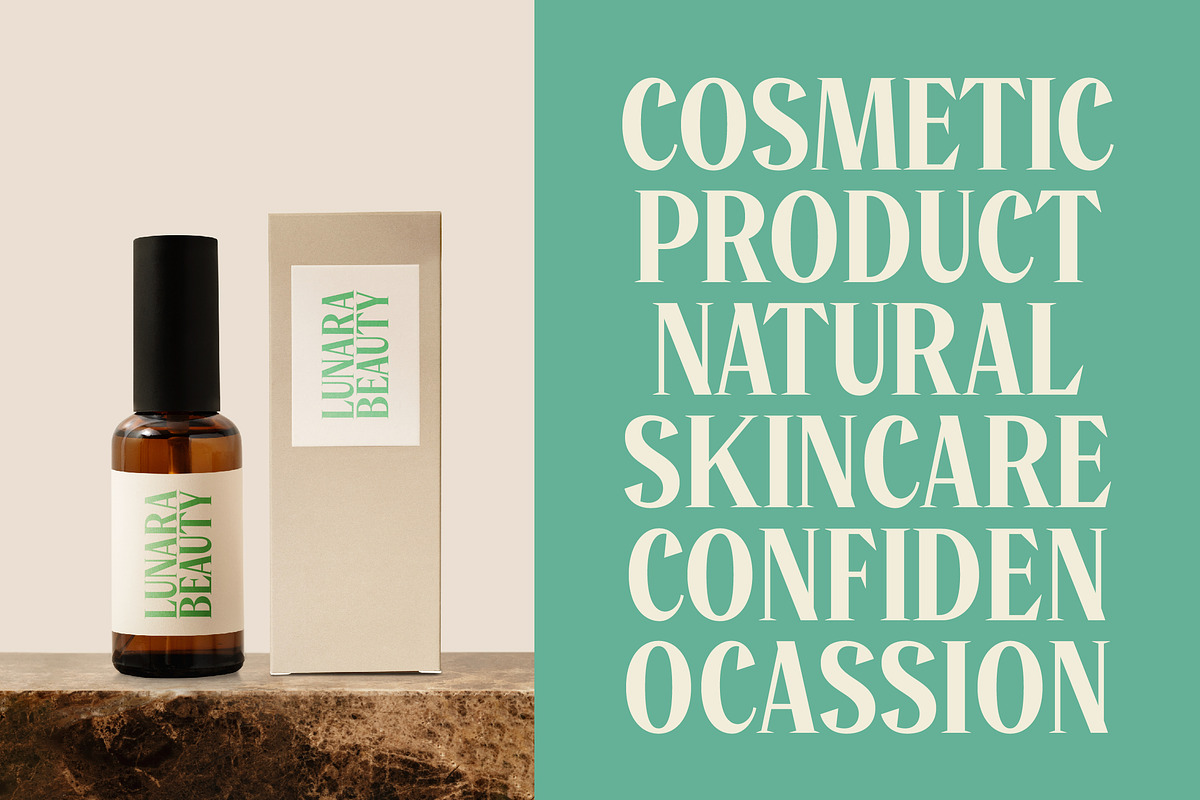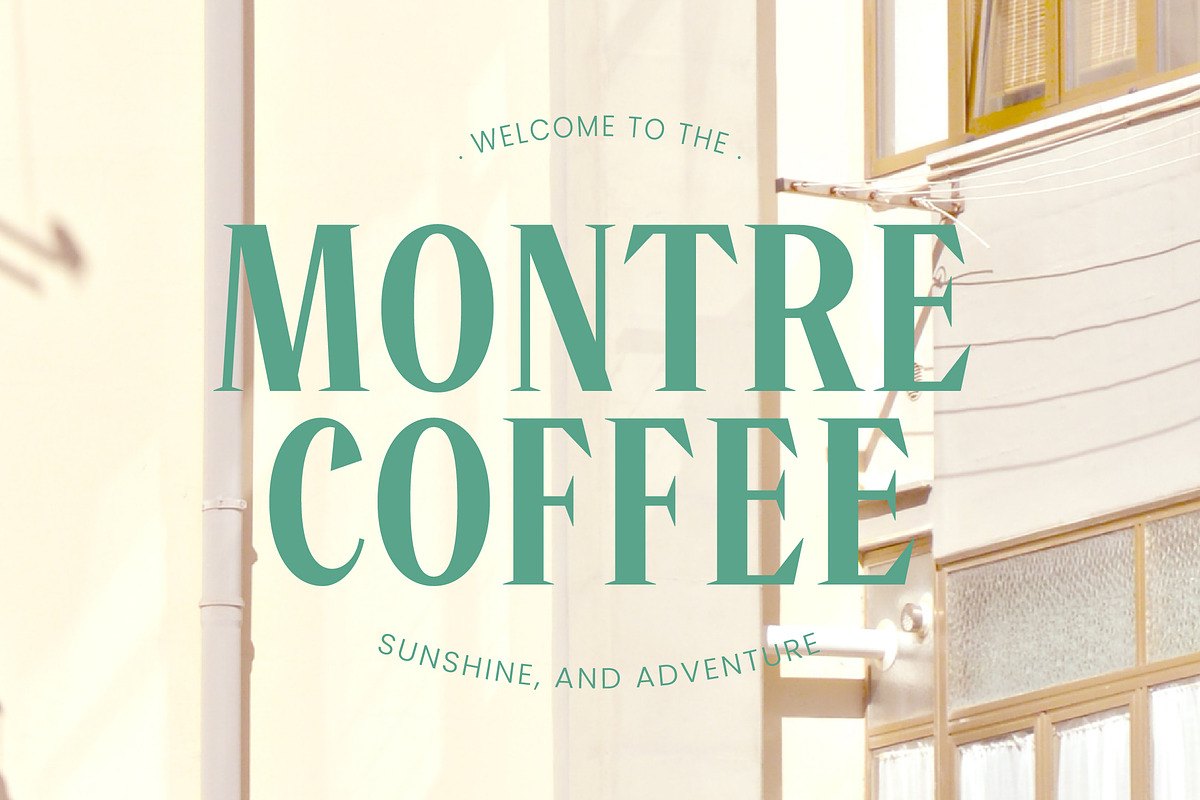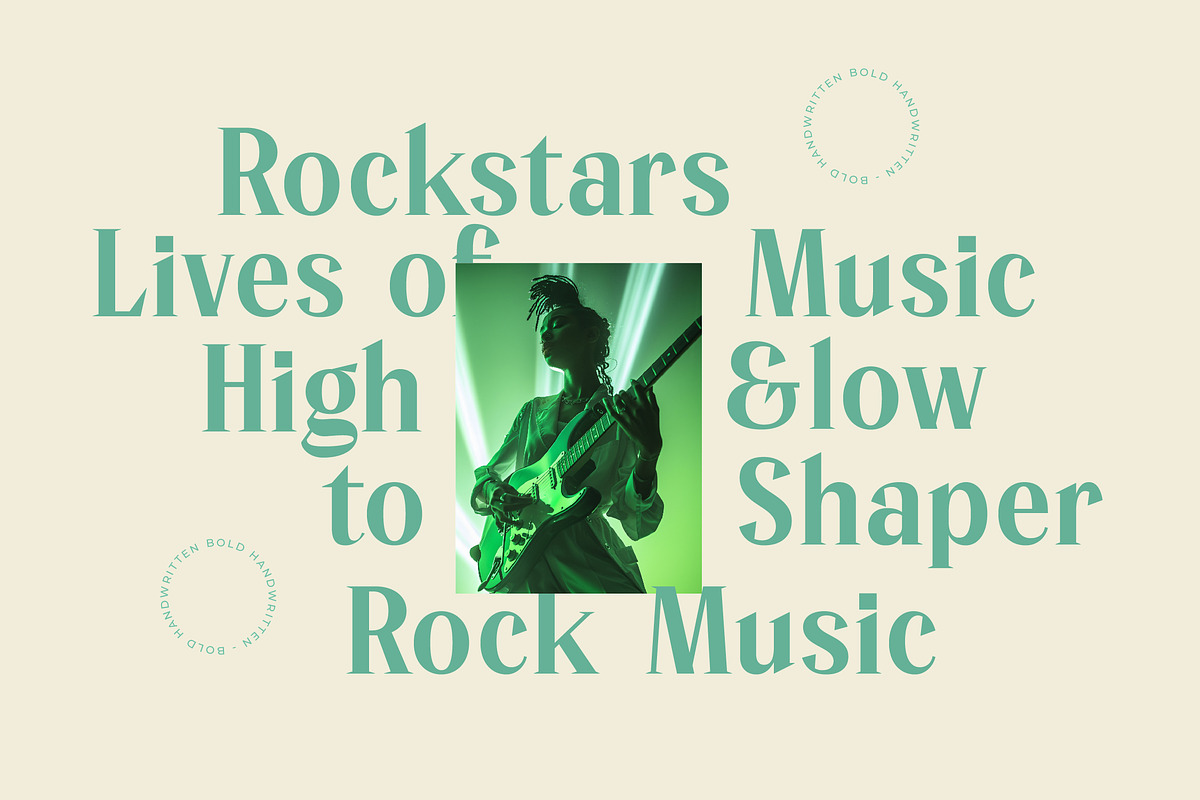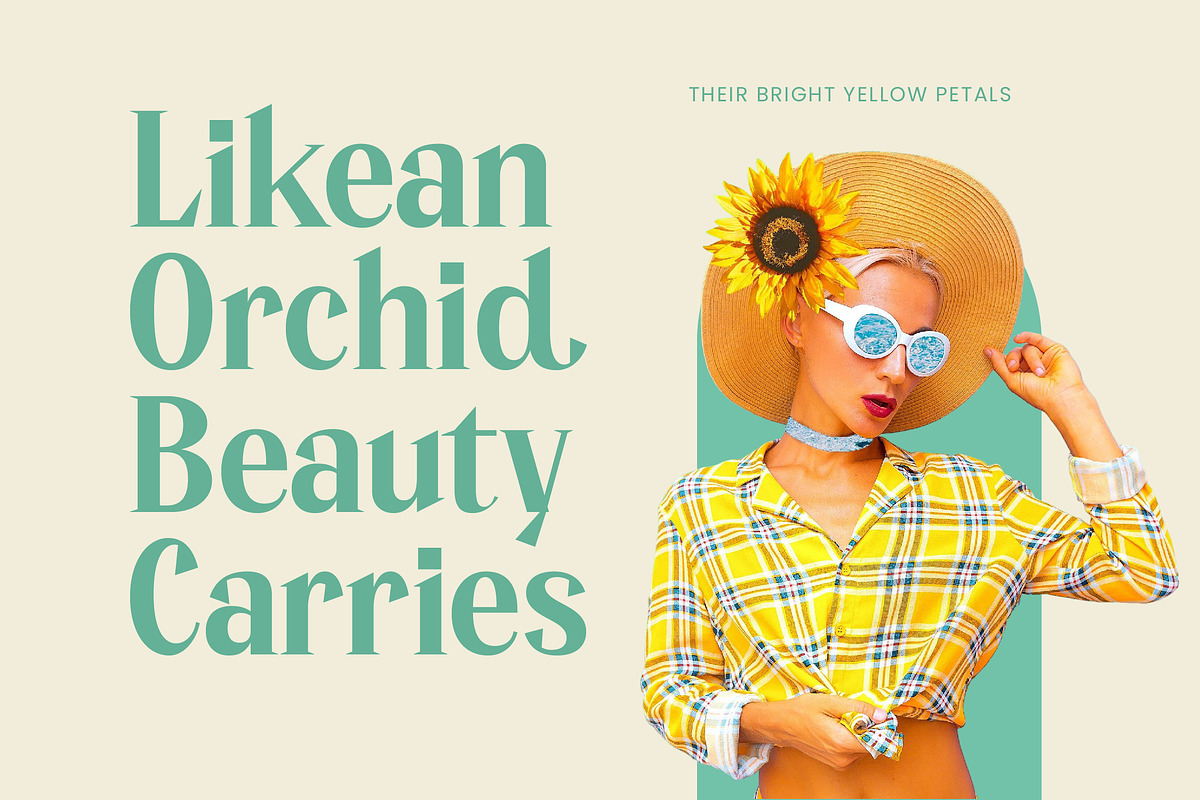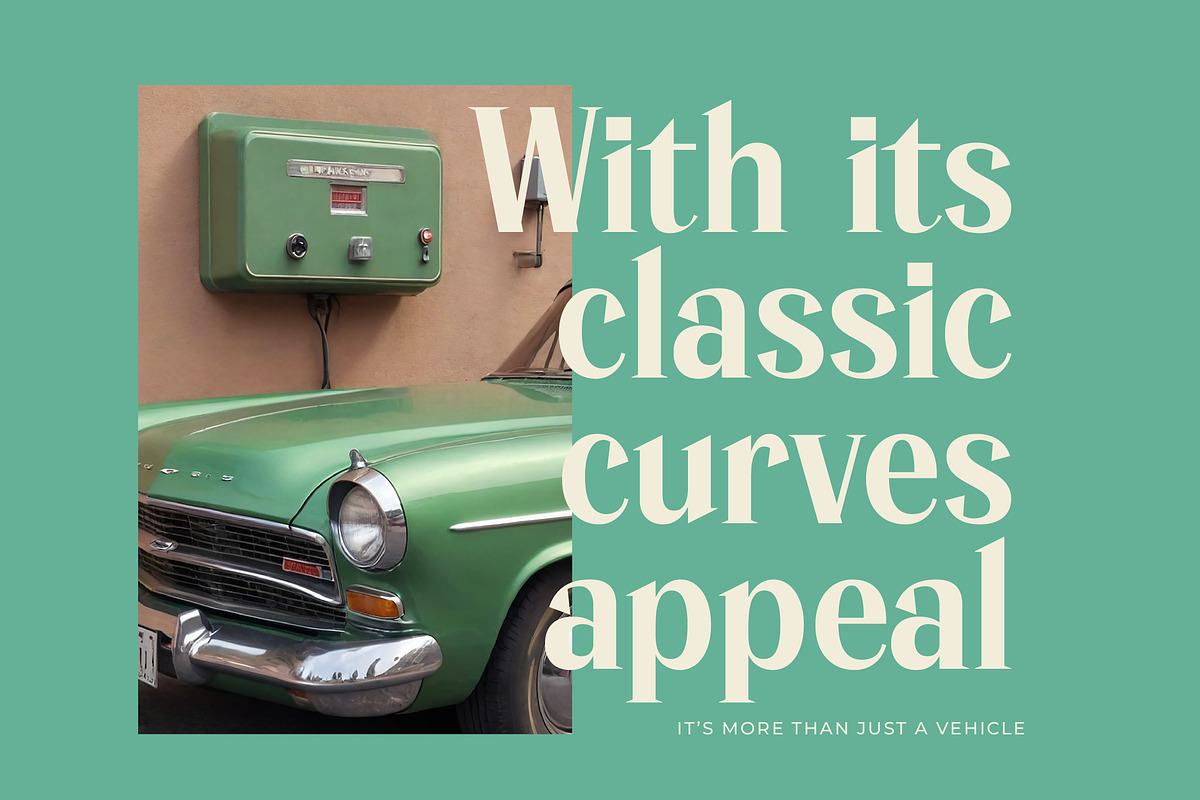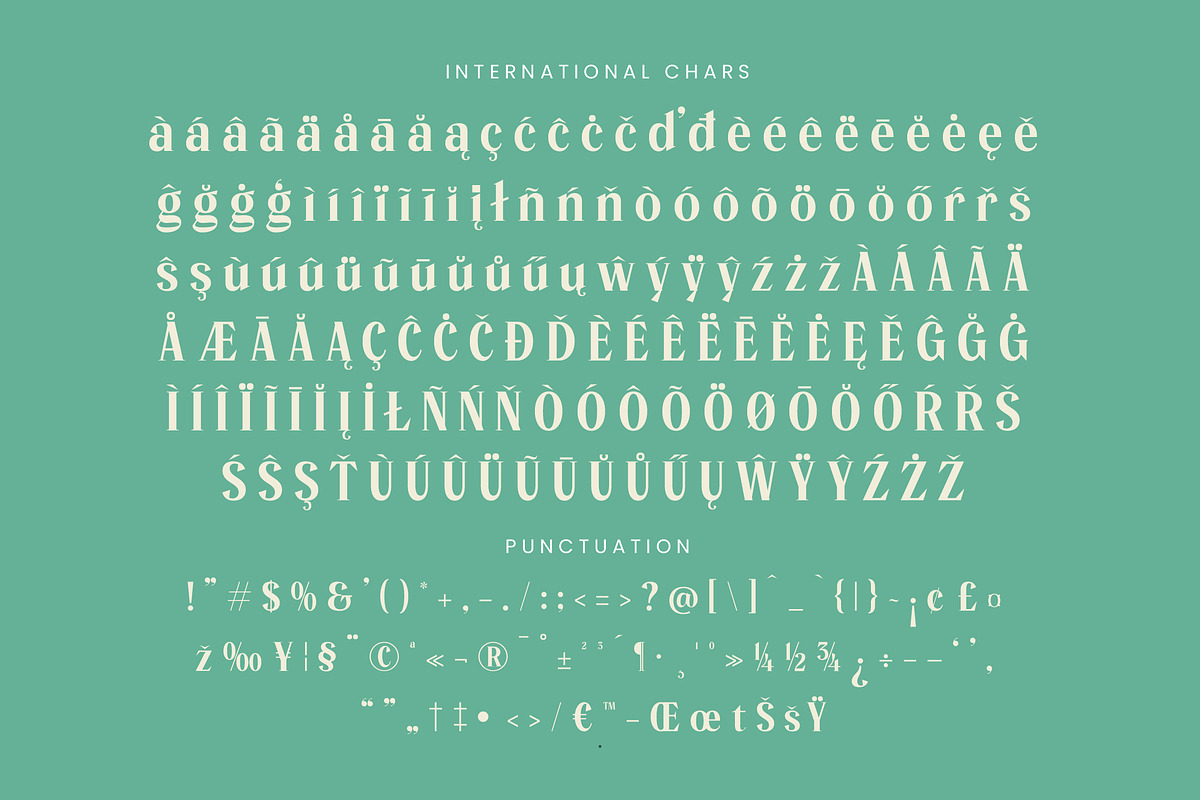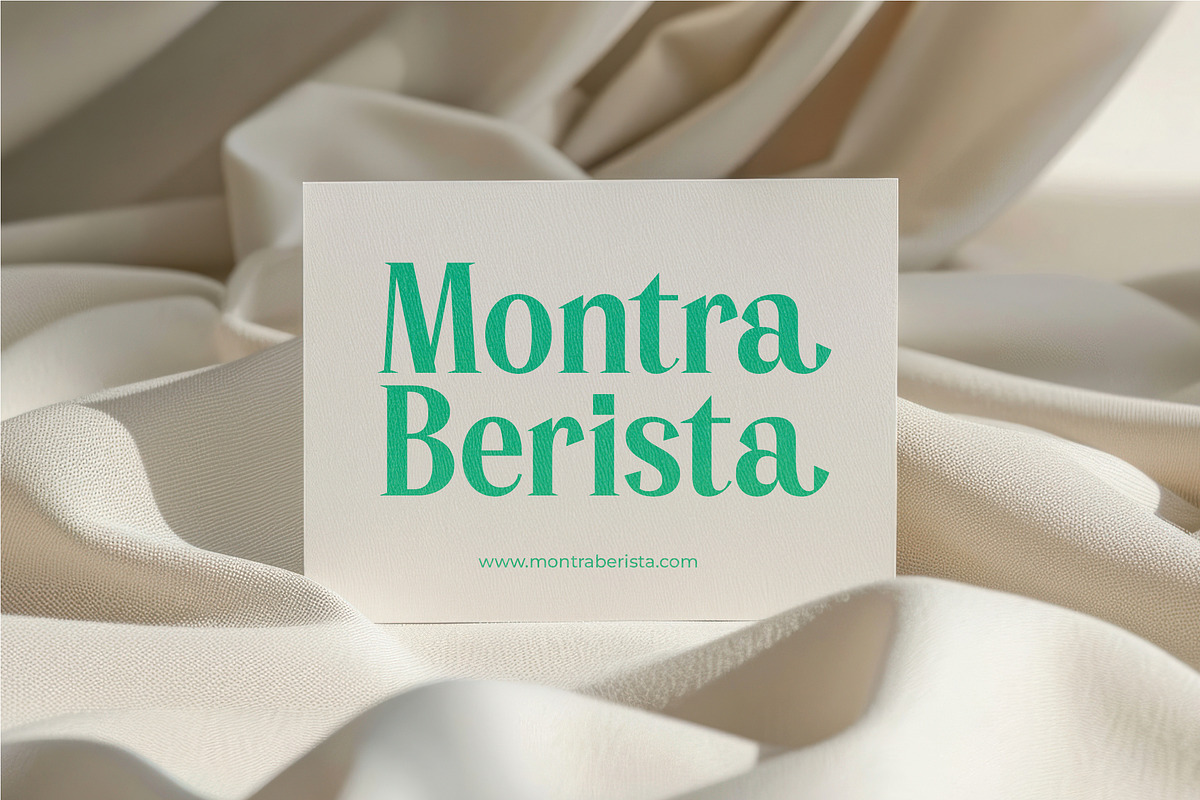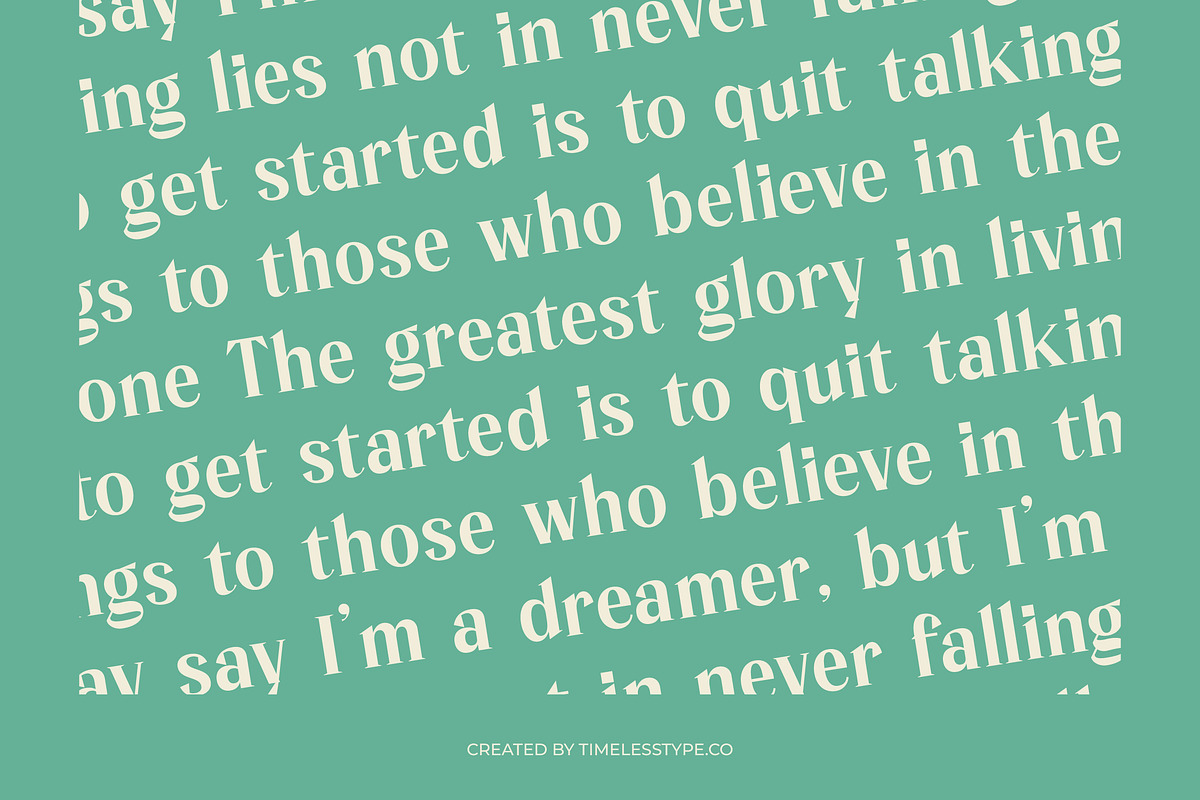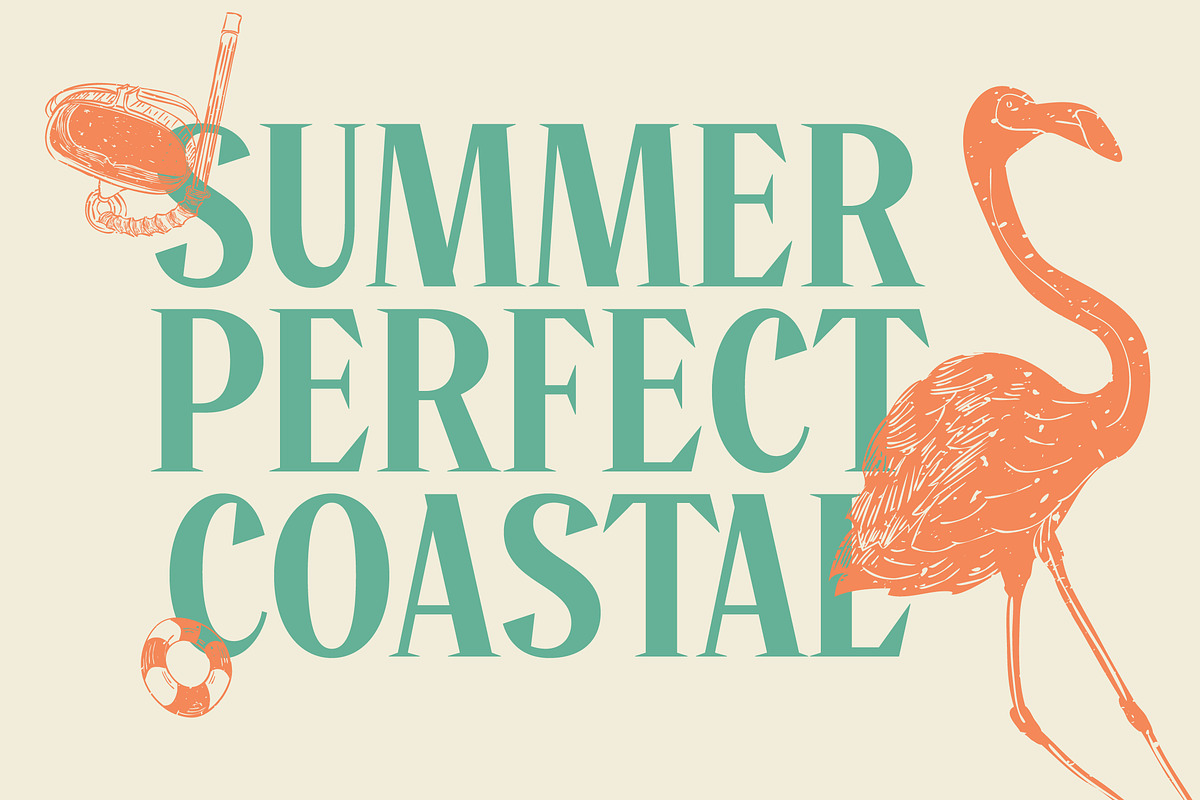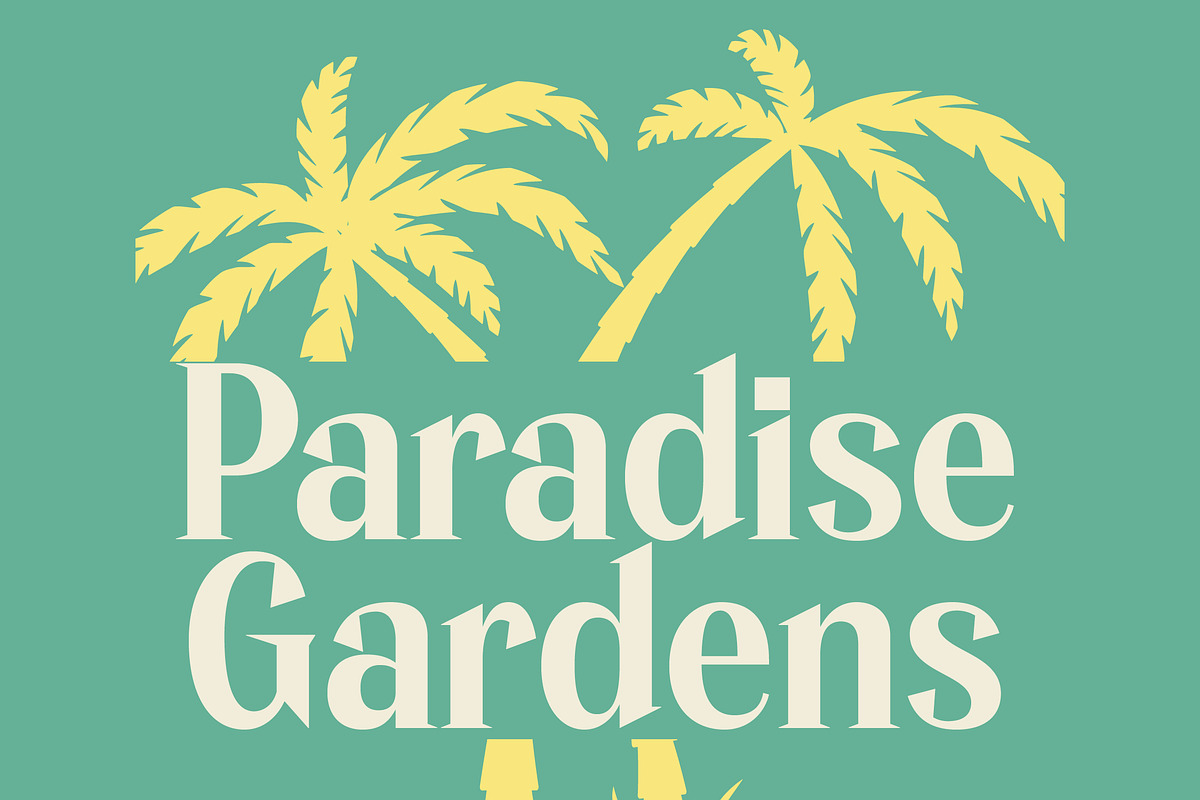
Manica Modern Editorial Serif
Introducing Manica, a breathtakingly elegant serif that blends contemporary edge with timeless sophistication. This typeface is designed to command attention while maintaining a delicate sense of grace in every stroke.
Inspired by the intersection of botanical illustrations and high-fashion mastheads, this font captures the essence of organic beauty and structured design. Its sharp, needle-like serifs and fluid transitions evoke the delicate yet strong structure of a blooming flower.
As a modern serif display font, it offers a striking high-contrast serif profile that ensures branding impact across all platforms. Whether used for a minimalist header or a complex layout, this luxury typography serves as an essential editorial font for designers seeking distinctiveness.
Perfectly aligned with the current modern serif trend, this typeface meets the demand for character-driven typography that tells a story beyond the words. It stands out in the world of editorial display fonts by offering a unique balance of sharp geometry and soft, flowing alternates.
This versatile face is a premier choice for logo design, high-end packaging, and sophisticated branding projects. From fashion lookbooks and wedding stationery to luxury editorial spreads, its presence elevates the visual narrative of any premium brand.
Packed with technical excellence, the set includes a rich variety of ligatures and alternates that allow for custom typographic flourishes. It also features comprehensive multilingual support and international characters, ensuring your message reaches a global audience with ease.